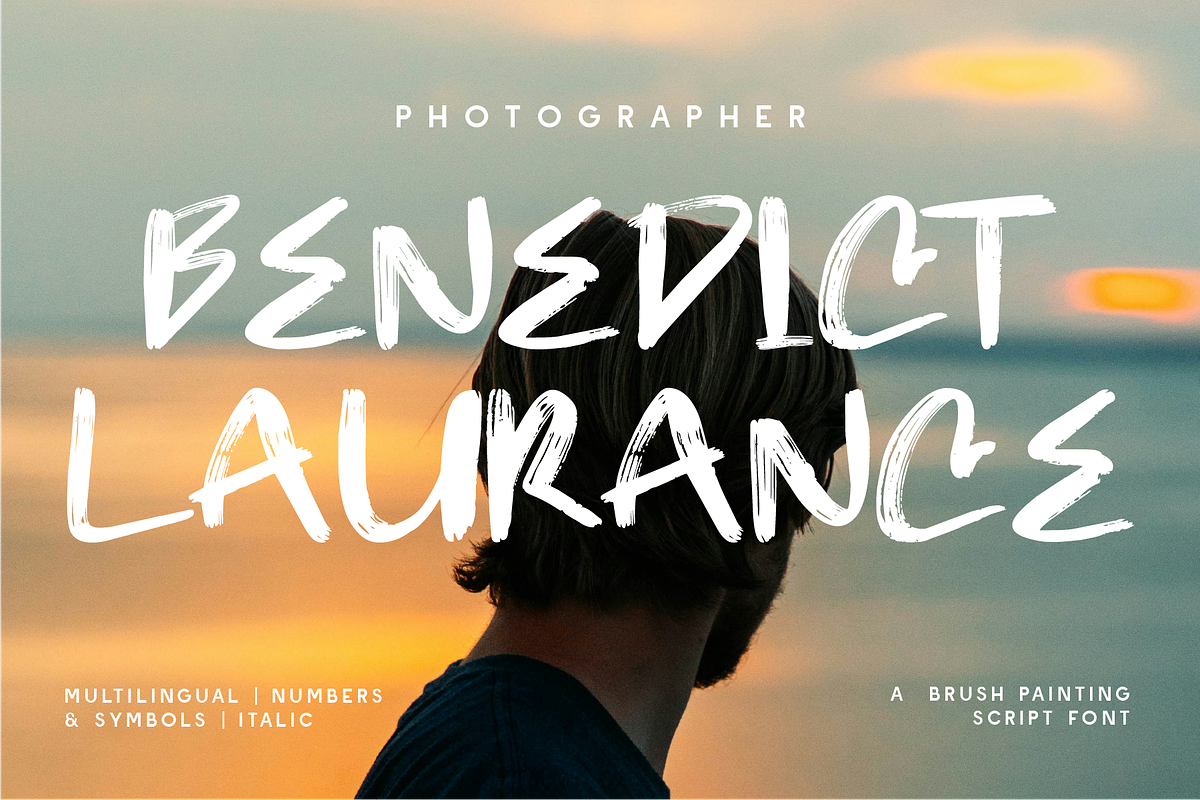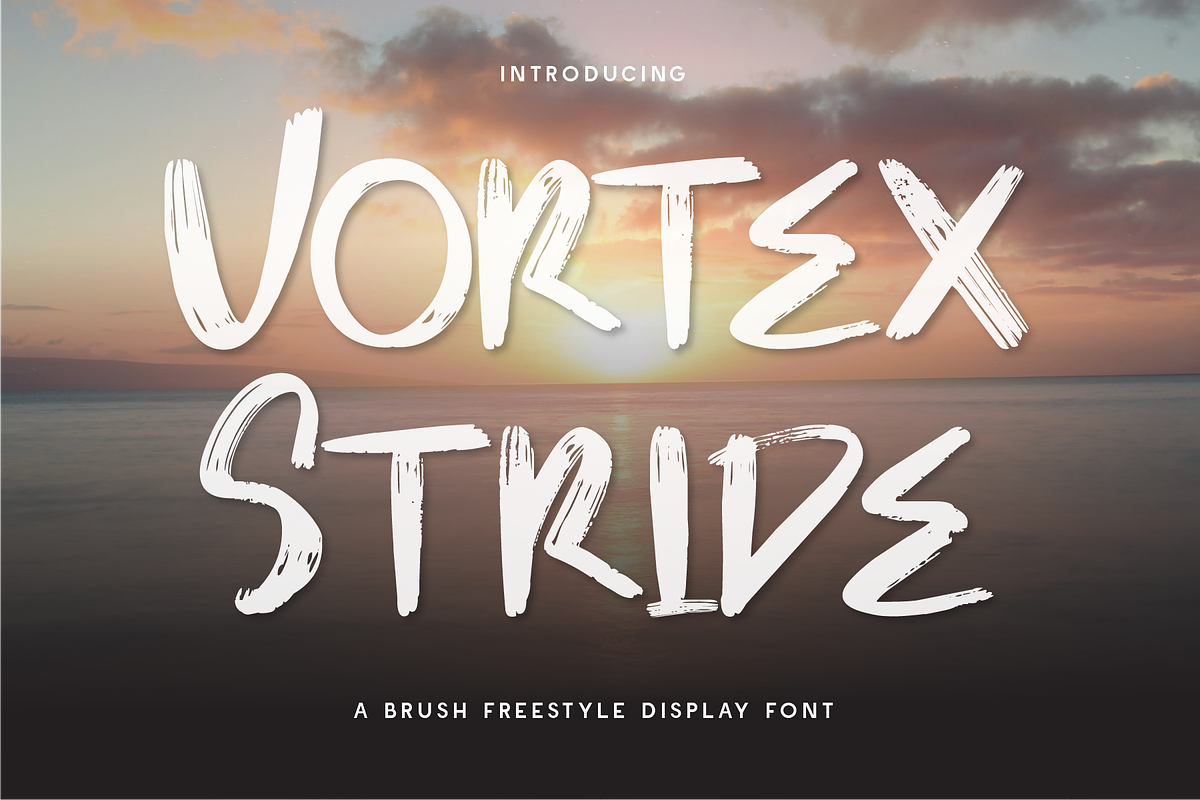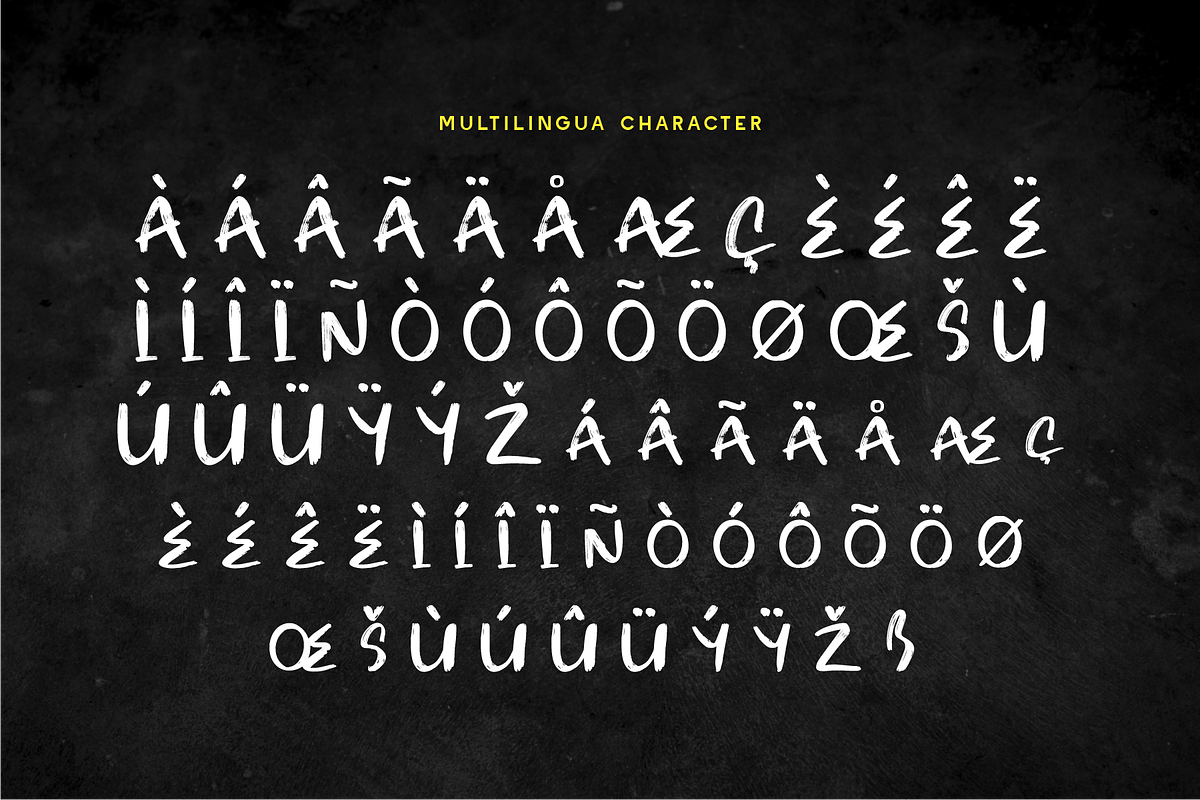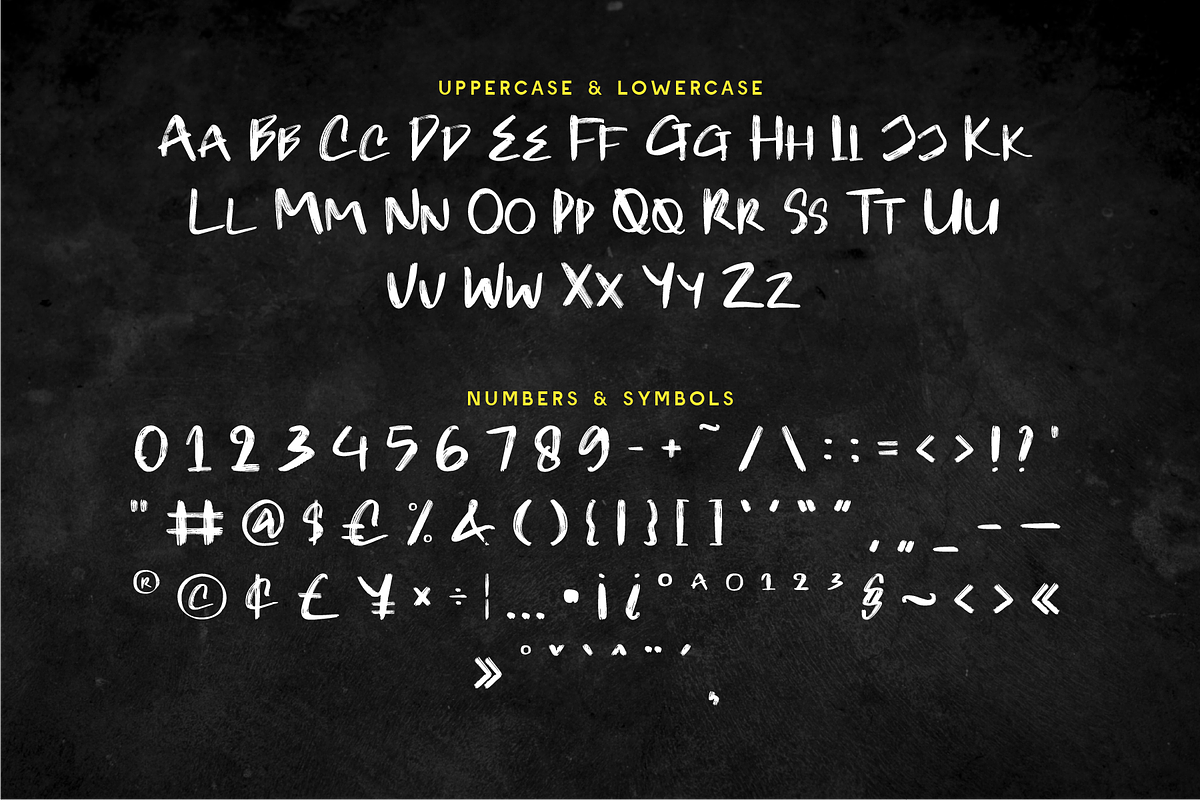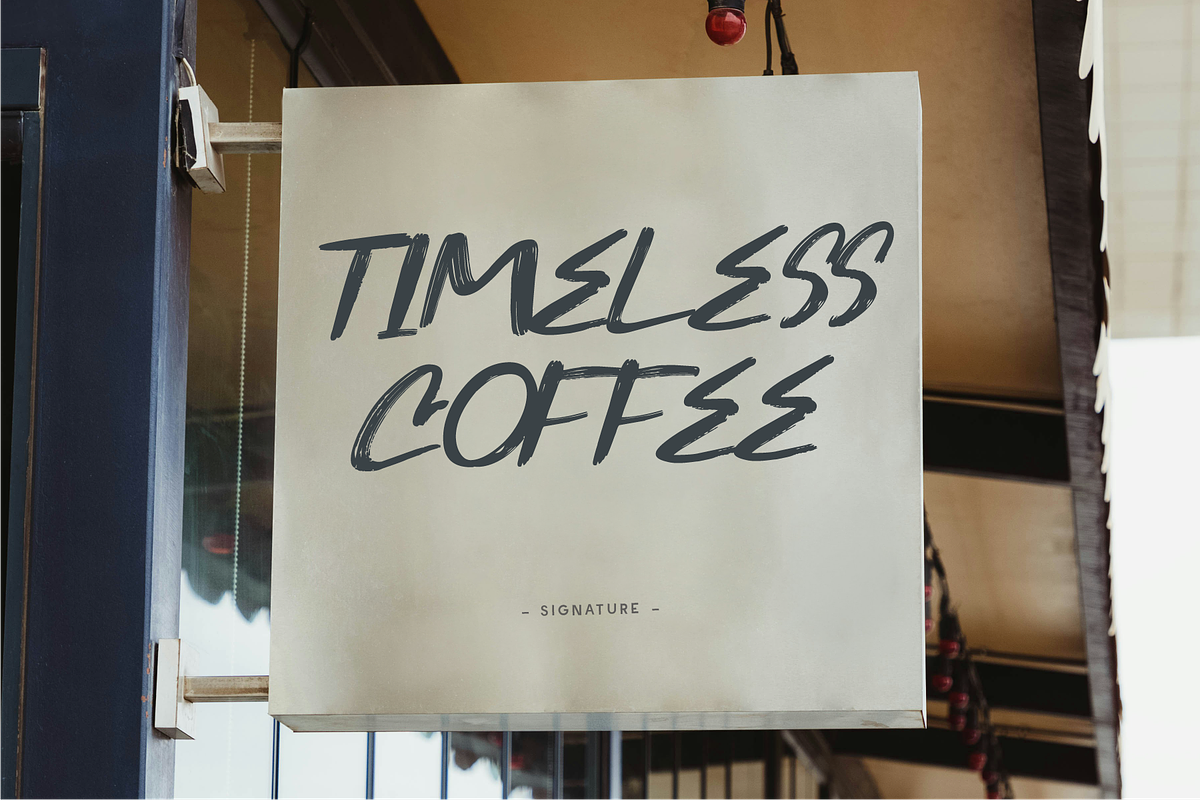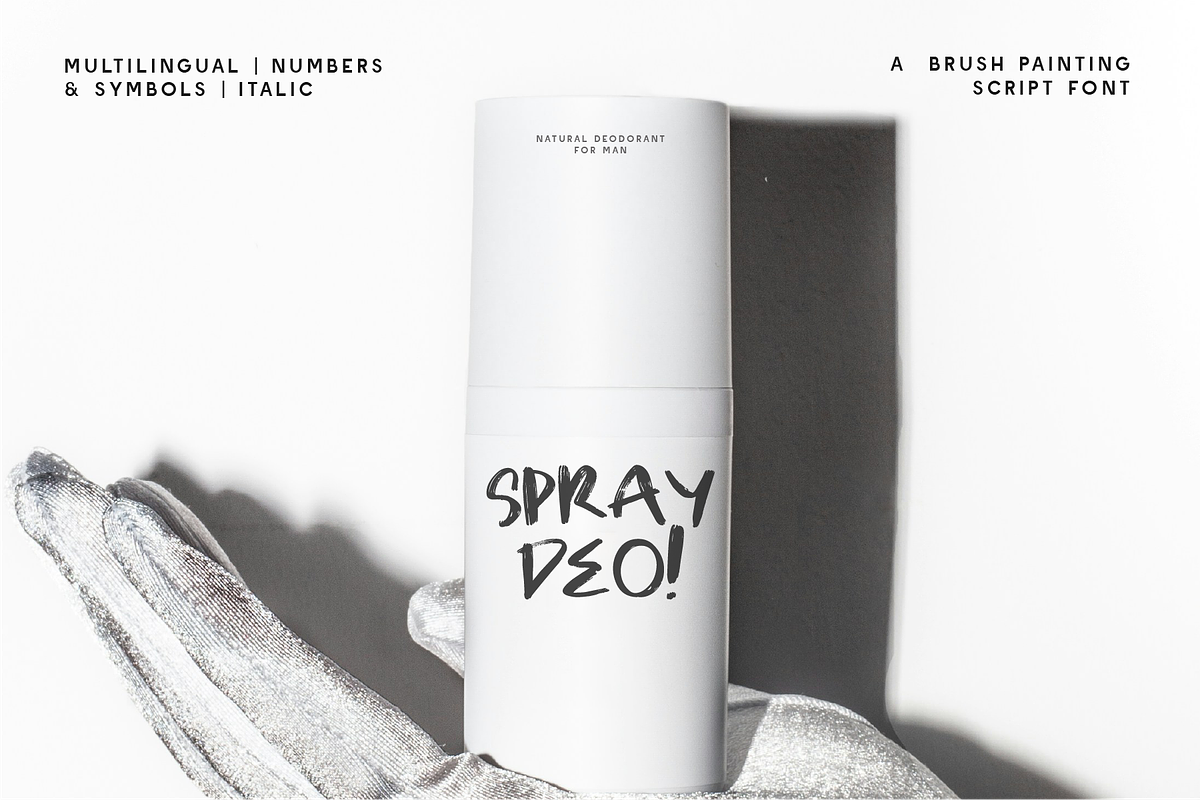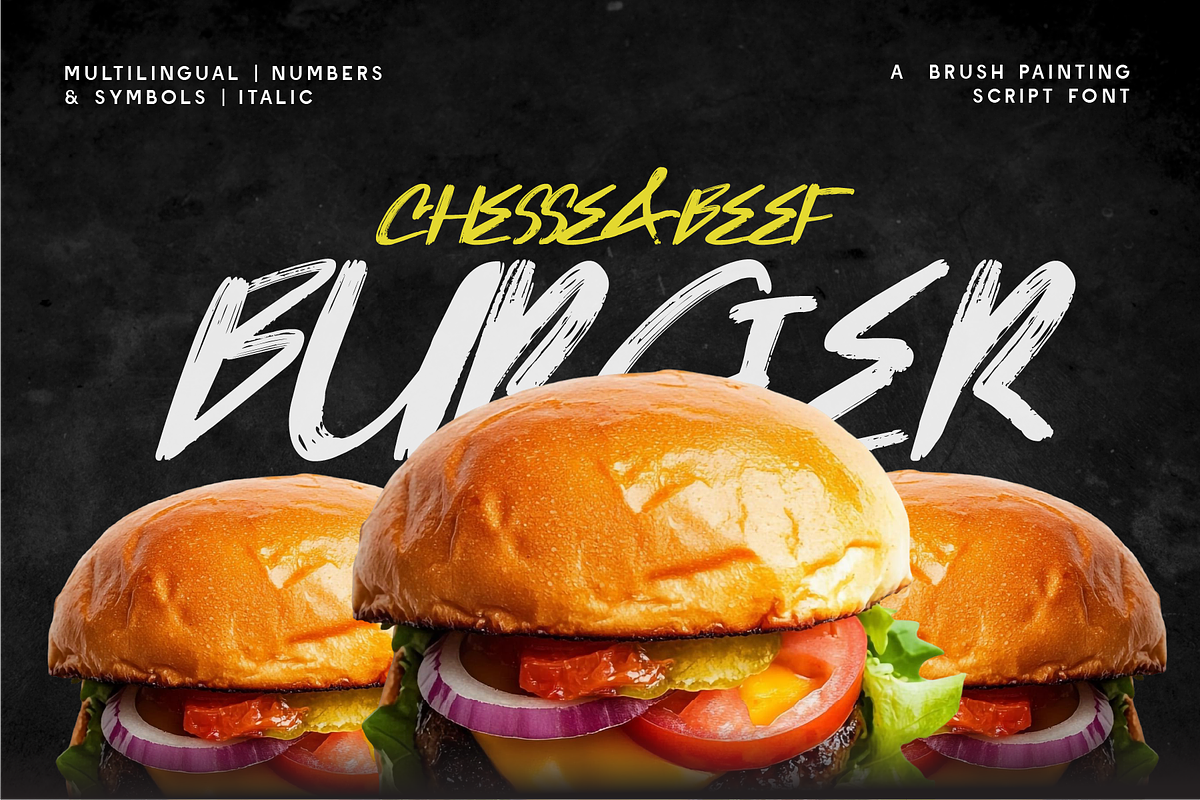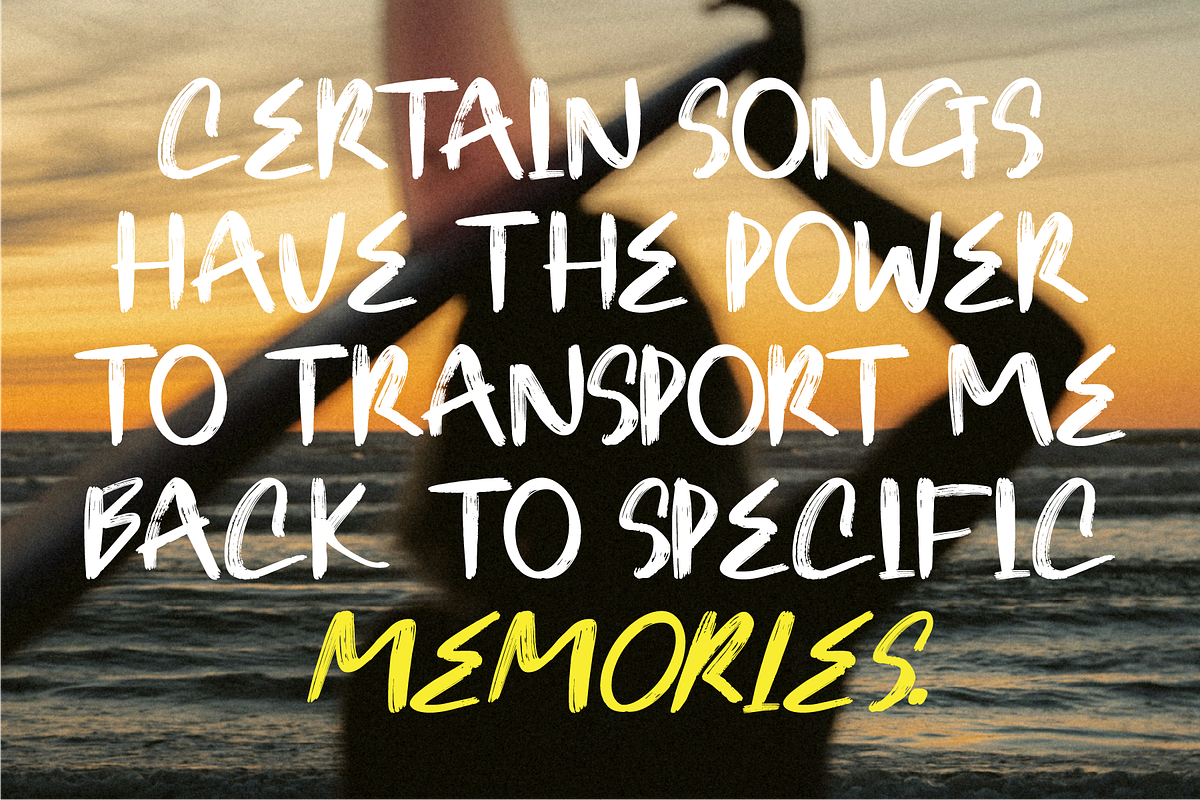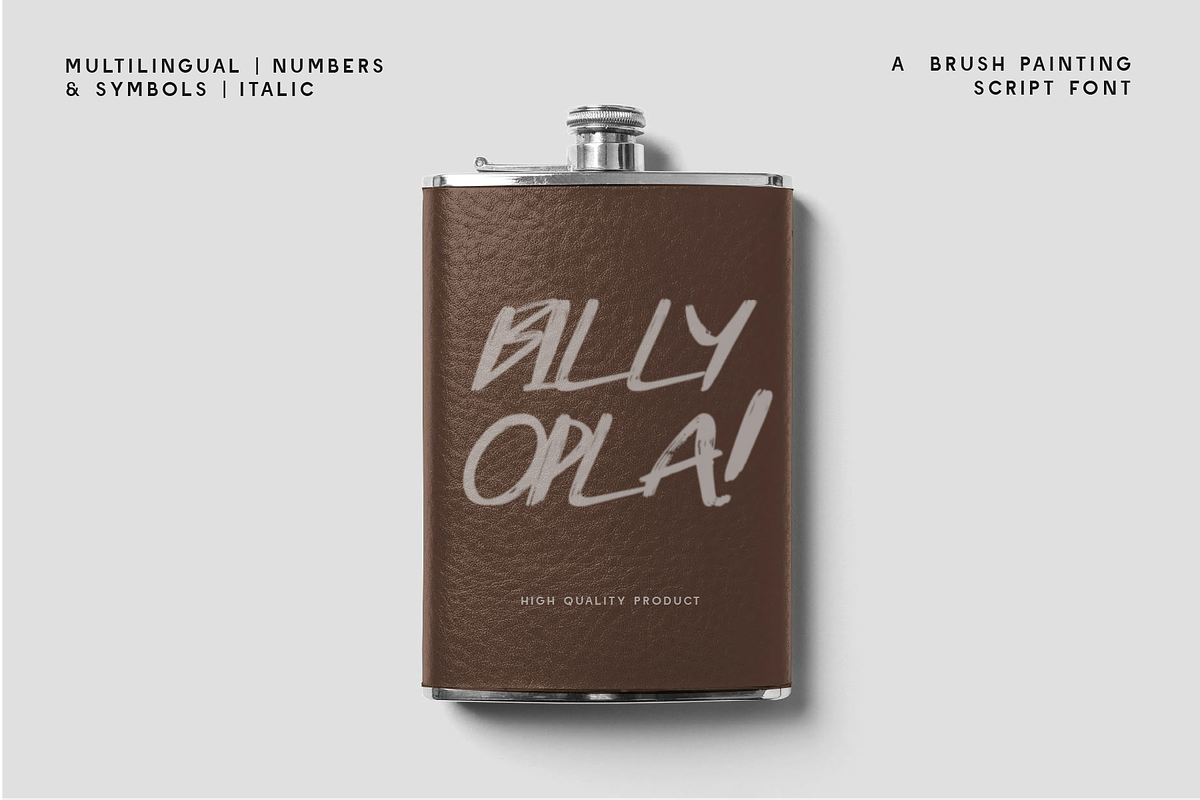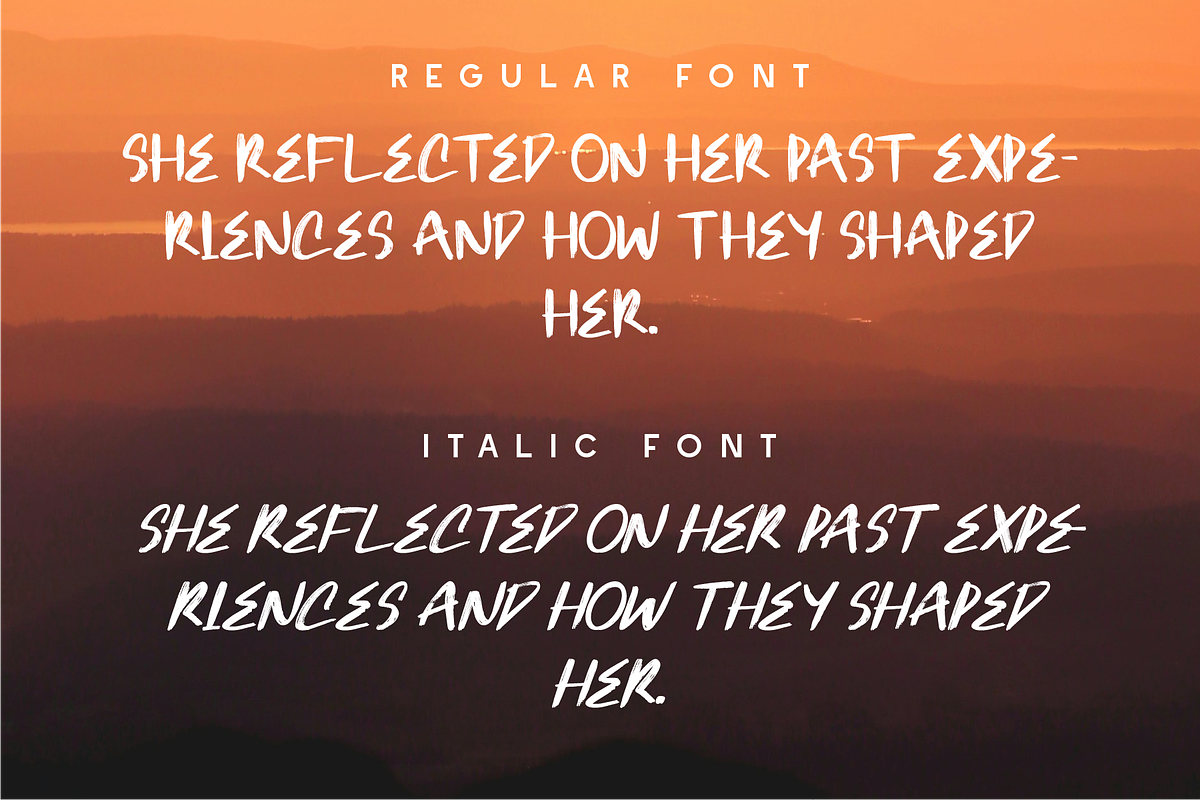
Vortex Stride - Brush Painting
Vortex Stride – A Bold & Freestyle Brush Display Font Feel the unstoppable energy of Vortex Stride, a brush freestyle display font designed for creatives who love bold, expressive typography. With its hand-painted strokes, rough textures, and dynamic movement, this font adds a powerful, adventurous touch to any project. Perfect for sports branding, streetwear, posters, album covers, social media, and high-impact marketing, Vortex Stride delivers raw intensity and motion, making it an excellent choice for designs that need to stand out with confidence and boldness.
Why Choose Vortex Stride?
🎨 Freestyle Brush Texture: A natural, hand-painted look with a rugged edge.
⚡ Bold & High-Energy: Designed to create impact in urban, sporty, and creative designs.
🔥 Versatile & Eye-Catching: Perfect for posters, apparel, branding, and dynamic typography.
🌍 Multilingual Support: Comes with numbers, symbols, and extensive language compatibility. Stride forward with unstoppable energy—Download Vortex Stride today and add a bold, artistic edge to your projects! 🎨🔥
- Standard Character A-Z, a-z, 0-9, Punctuation & symbols
- Regular and Italic